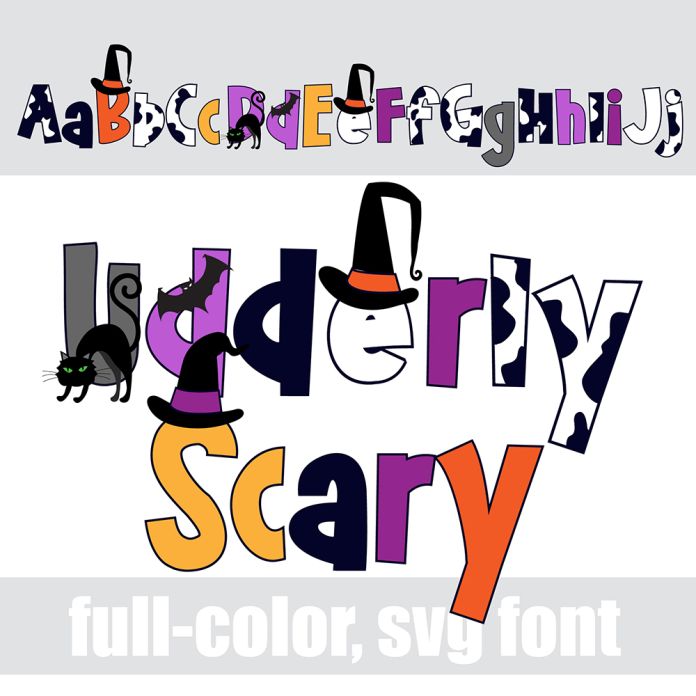
This full-color font features a chunky sans serif font in a Halloween color palette and sports bats, hats, and spiders. There is an alt version you can access through your system's character map that contains additional colors of all the letters. This font works best for titles, displays, posters and more. Please note color fonts will show as black in non compatible programs. This font type is compatible with Silhouette Studio.